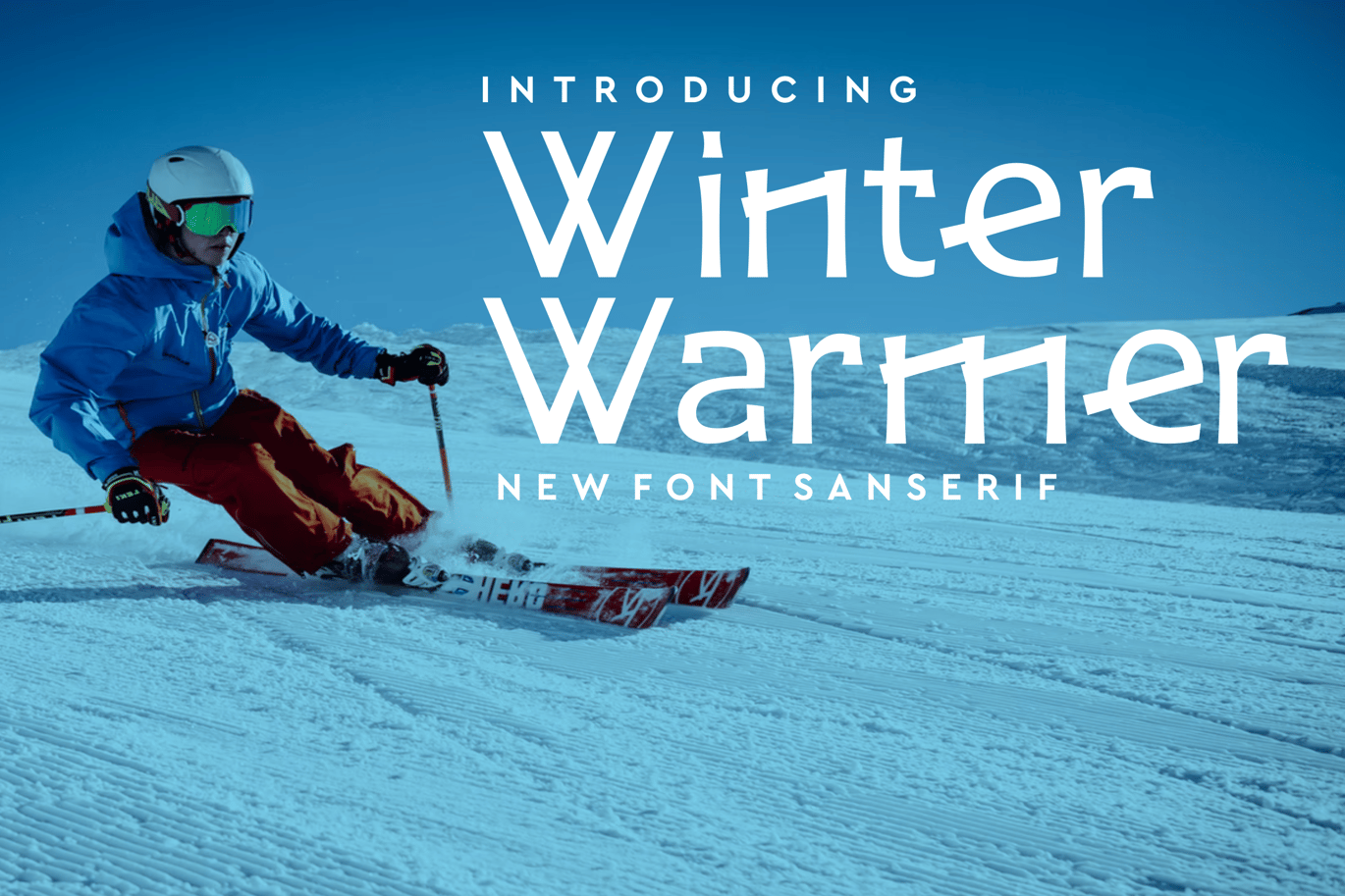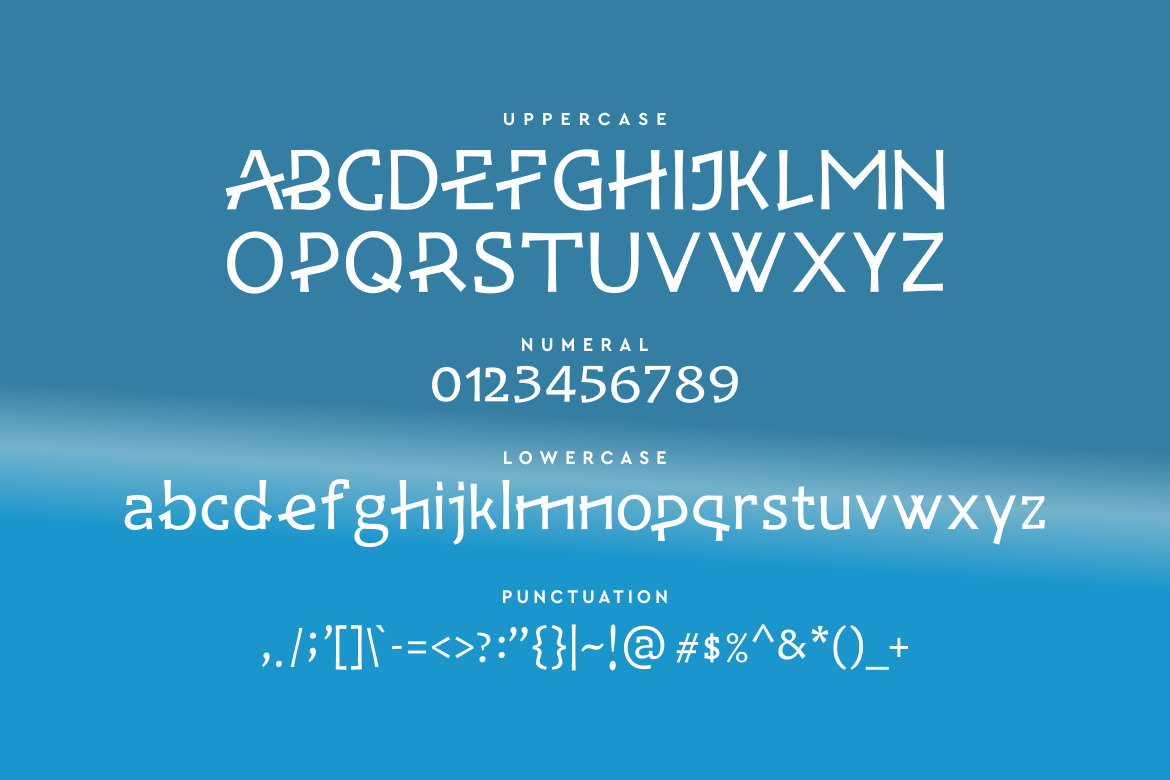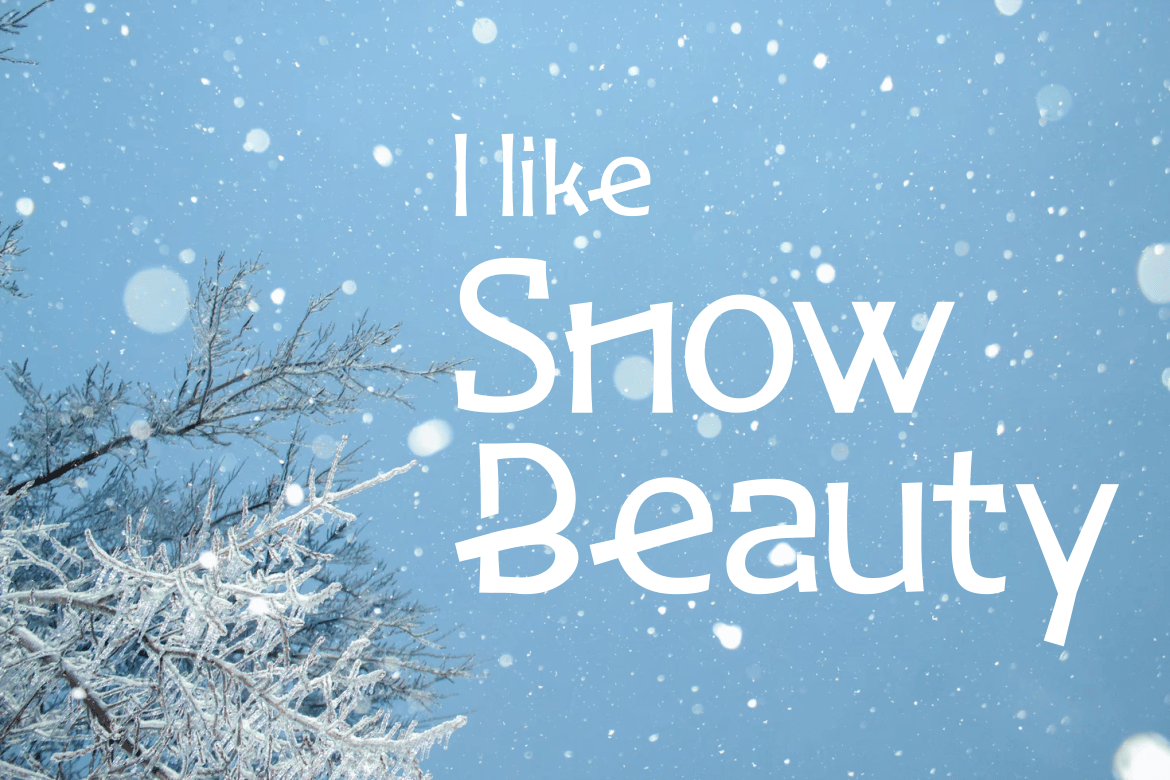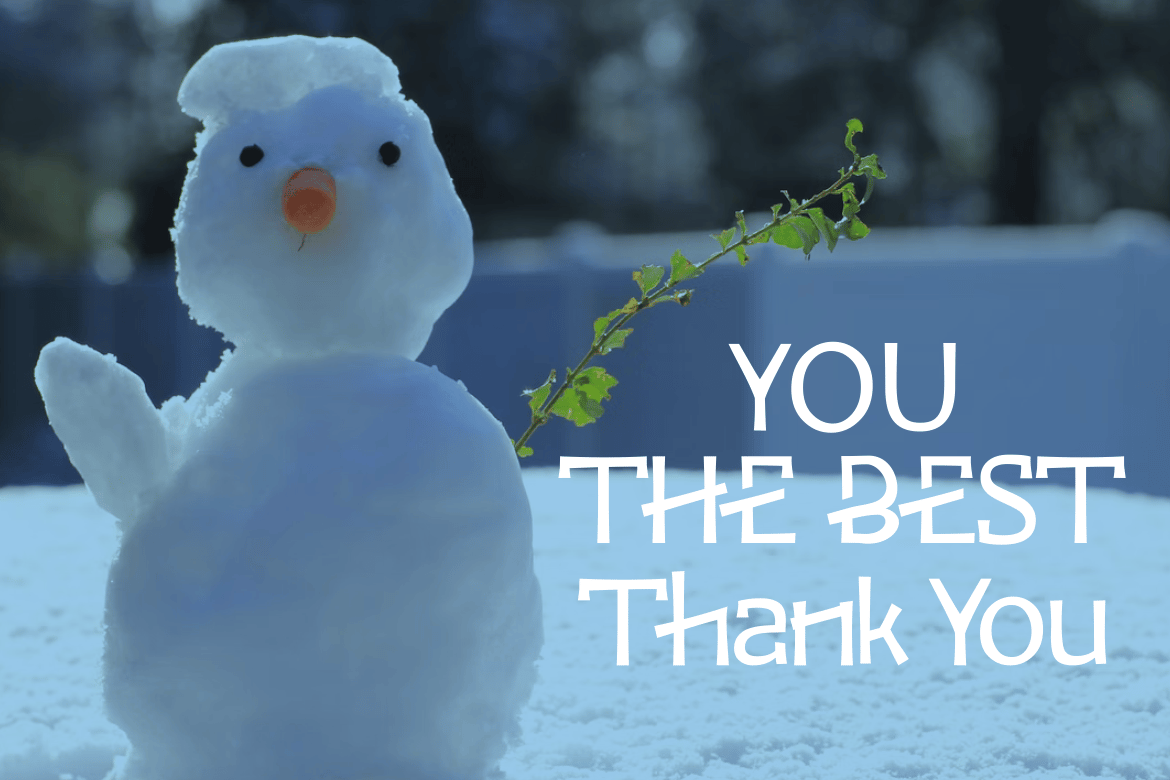
Winter Warmer Font
Introducing our new product Winter Warmer Font – Modern Font
Winter Warmer Font– Modern Font is a bold and authentic display font. The font is suitable for any branding project like logo, t-shirt printing, esport, and many more. outstanding in a wide range of contexts.
- Symbols
- Decorative